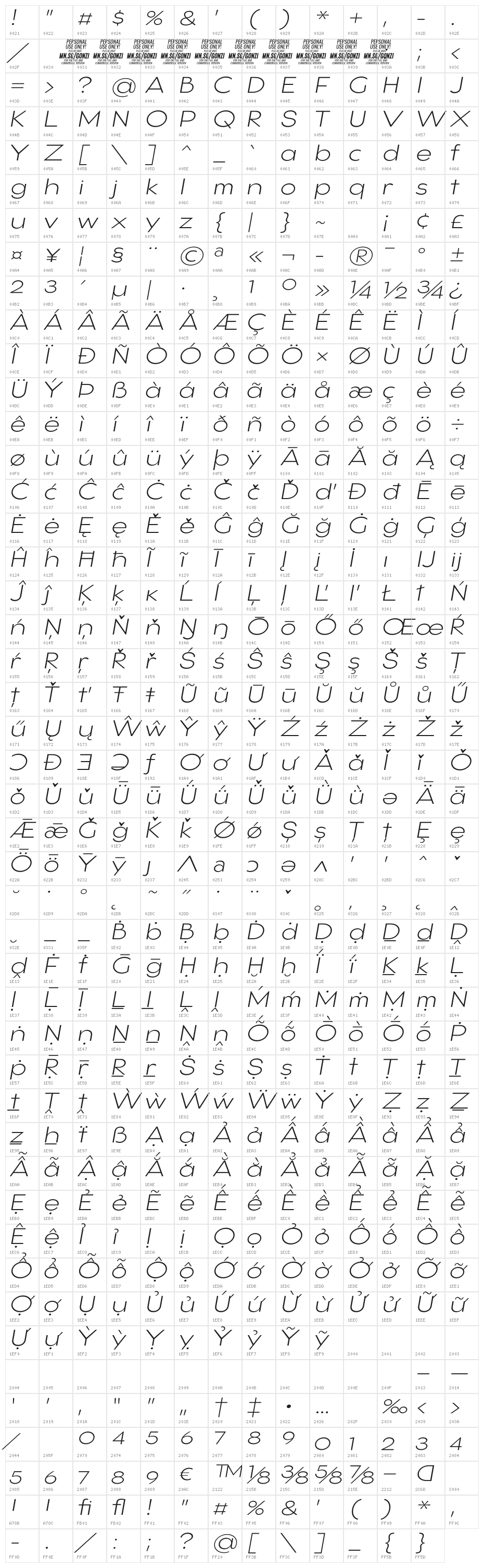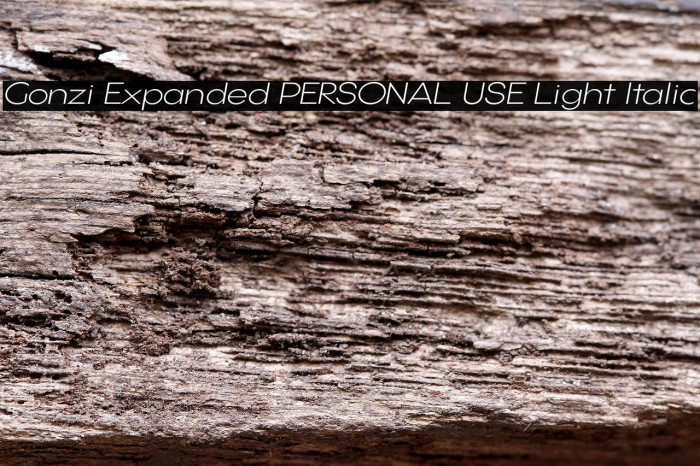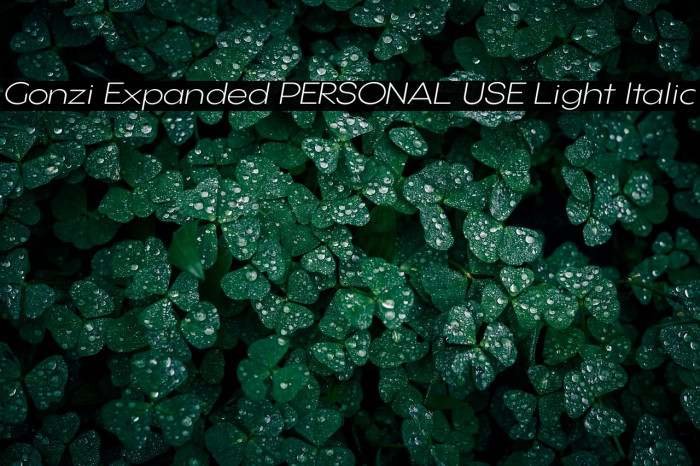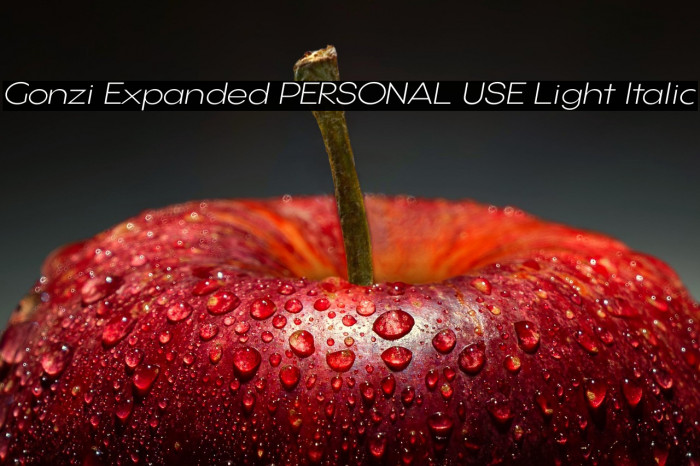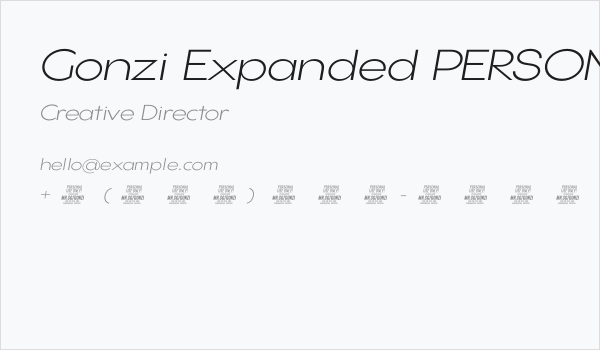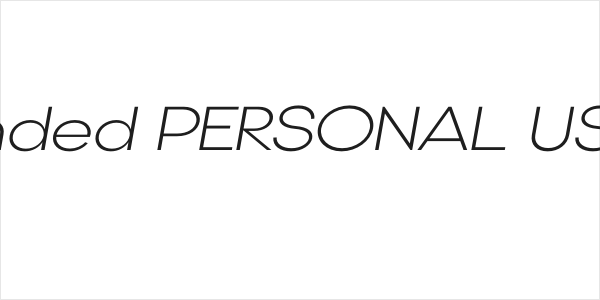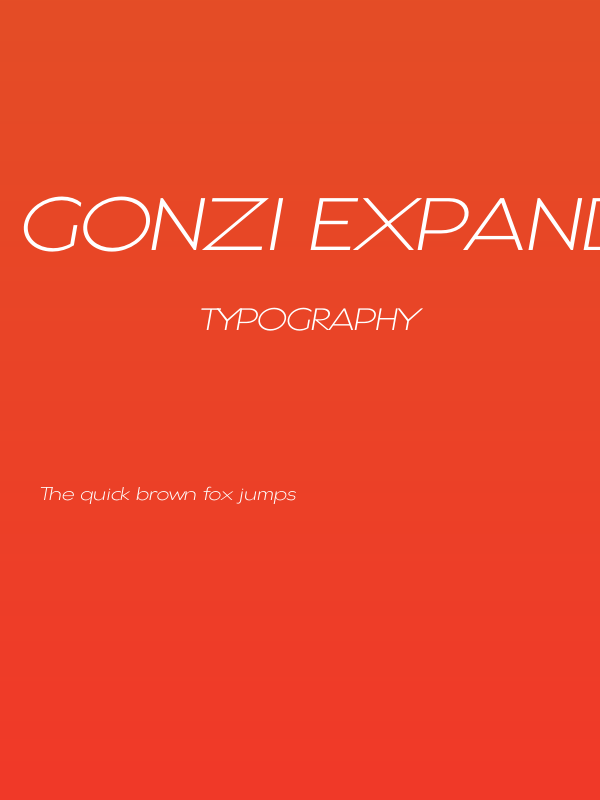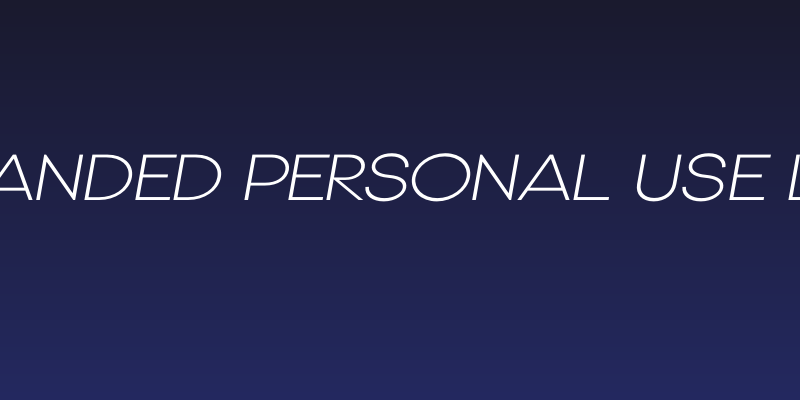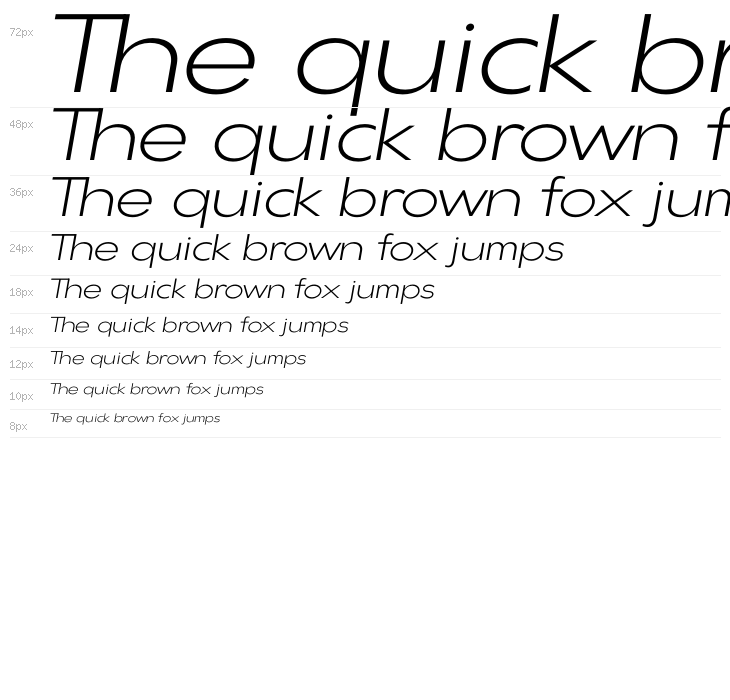
Gonzi Expanded PERSONAL USE Light Italic Font
Gonzi Expanded PERSONAL USE Light Italic Description
This font features a sleek and modern design with an expanded width, giving it a spacious and airy feel. The characters are crafted with a light weight, which enhances its elegant and sophisticated appearance. The italic style adds a dynamic and fluid touch, making it suitable for creative and contemporary design projects. The font maintains a consistent stroke width, contributing to its clean and polished look. It includes a full set of uppercase and lowercase letters, numbers, and a variety of special characters, ensuring versatility for various applications.
| Use Case | Headlines, Logos, Display text |
| Proposed Projects | Ideal for branding, advertising, fashion magazines, and modern web design. |